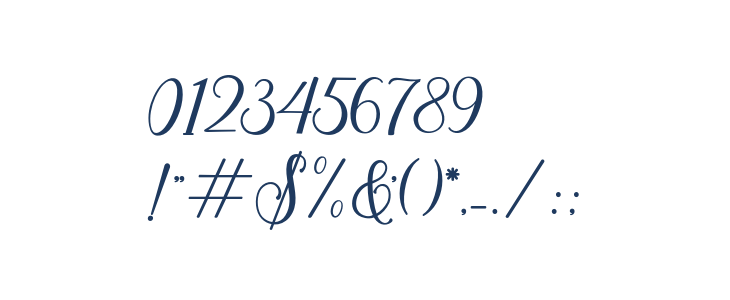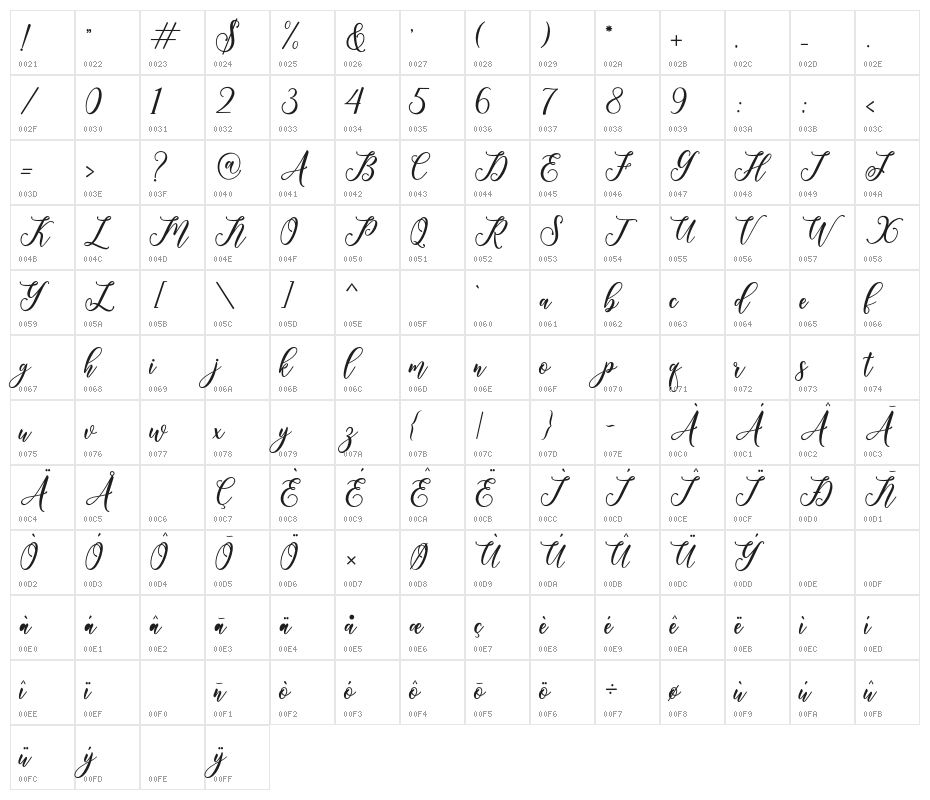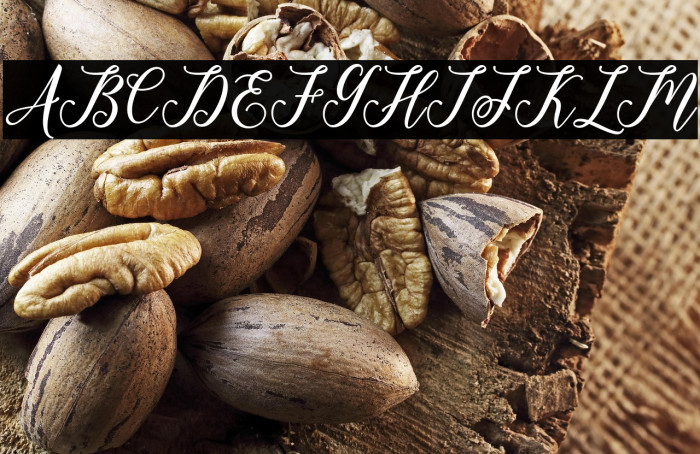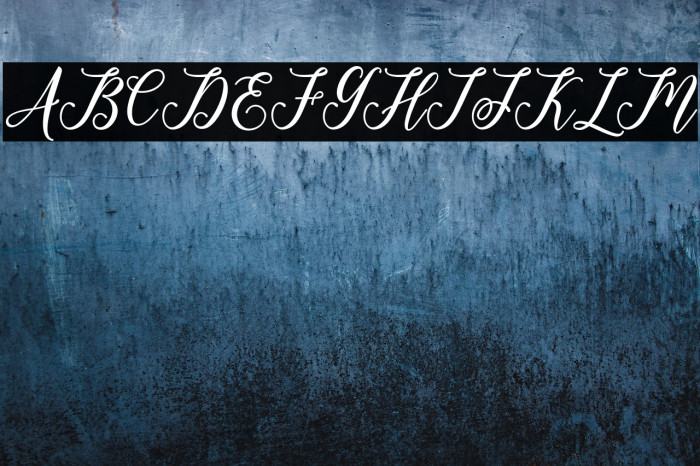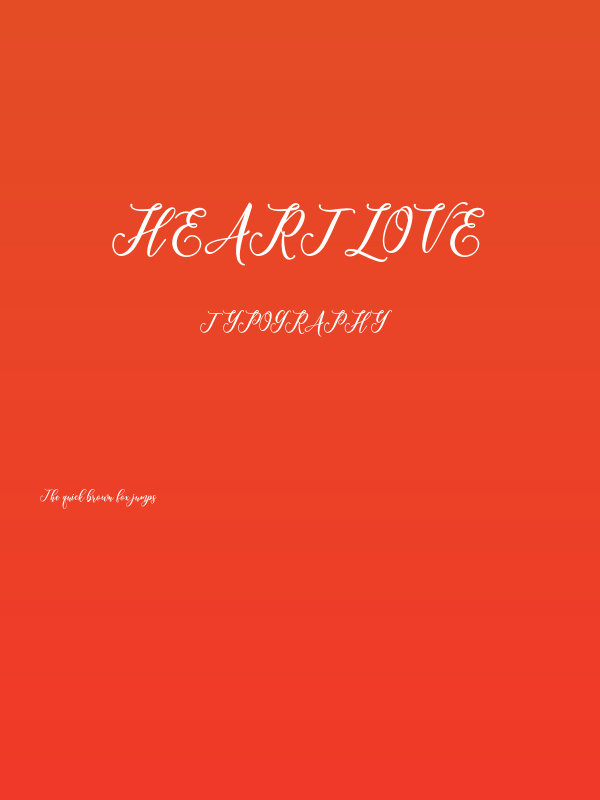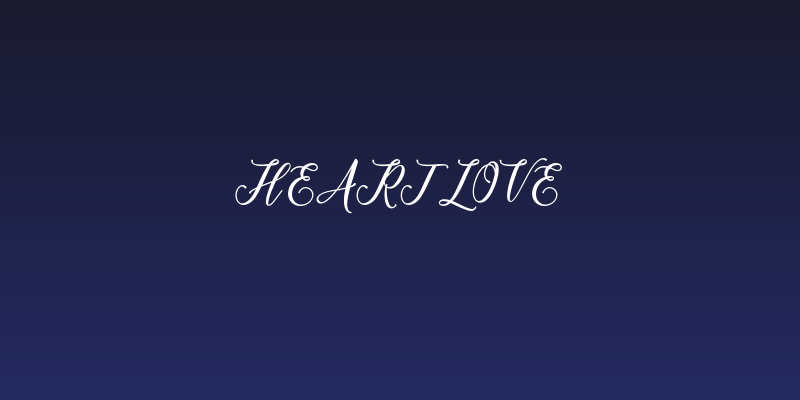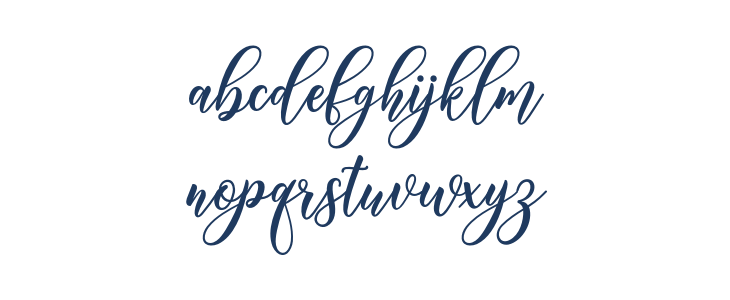
heartlove Font
heartlove Description
This font features an elegant and flowing script style, characterized by its smooth, cursive letterforms that mimic the fluidity of handwriting. The uppercase letters are distinct with graceful loops and swashes, while the lowercase letters maintain a consistent rhythm and balance. The numerals are designed with a similar flair, ensuring a cohesive look across all characters. Special characters are thoughtfully integrated, enhancing the font's versatility. The overall appearance is sophisticated and artistic, making it suitable for projects that require a personal touch.